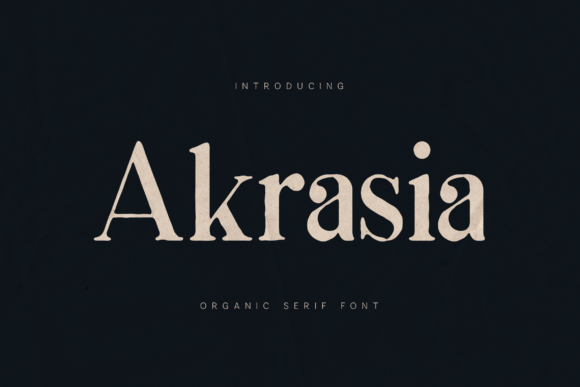
When Typography Meets Nature
Have you ever stumbled upon a beautifully crafted handmade book or an antique print, and felt an instant connection to the words and the person who created it? The tactile experience of holding a physical object, the imperfections in the lettering, and the warmth it exudes – it’s a sensory experience that’s hard to replicate in the digital world.
Designers have long been searching for ways to bring that same warmth and authenticity to their digital creations, and that’s where the Akrasia Font comes in. This organic serif font is inspired by natural imperfections and handcrafted letterforms, making it the perfect choice for brands that value authenticity and sustainability.
By incorporating the Akrasia Font into your design, you can create a sense of trust and connection with your audience, making it an invaluable tool for designers looking to add a human touch to their work.
Akrasia Font Key Features
- Font Family: Akrasia is a unique, high-quality font family designed for various purposes, including body text, headings, and titles.
- Character Set: Includes a comprehensive set of characters, including uppercase and lowercase letters, numbers, punctuation, and special characters, covering multiple languages.
- Unique Characteristics: Features a unique blend of modern and traditional elements, making it suitable for a wide range of design applications, from corporate to creative projects.
Akrasia Font Review
I recently had the chance to work with the Akrasia font, and I must say it’s an interesting choice. ✨ The font’s unique blend of modern and vintage elements makes it a great option for designers looking to add some character to their projects. The font’s weight and texture add depth and visual interest, making it perfect for use in branding, packaging, or any design where you want to create a sense of history and tradition.
- ✨ Unique blend of modern and vintage elements
- ✨ Great for adding character to projects
- ✨ Perfect for branding, packaging, and more
Limitsations:
- ⚠️ Limited legibility at small font sizes
- ⚠️ May not be suitable for body text or long blocks of text
The Akrasia font is a great choice for designers who want to add some personality to their projects. While it may have some limitations, its unique character and versatility make it a valuable addition to any design toolbox.
Akrasia Font is versatile and can be used in various design projects, such as:
- Headings and titles in presentations and documents
- Logos and typography in branding materials
- Quotes and captions in social media graphics
- Body text in articles and blog posts